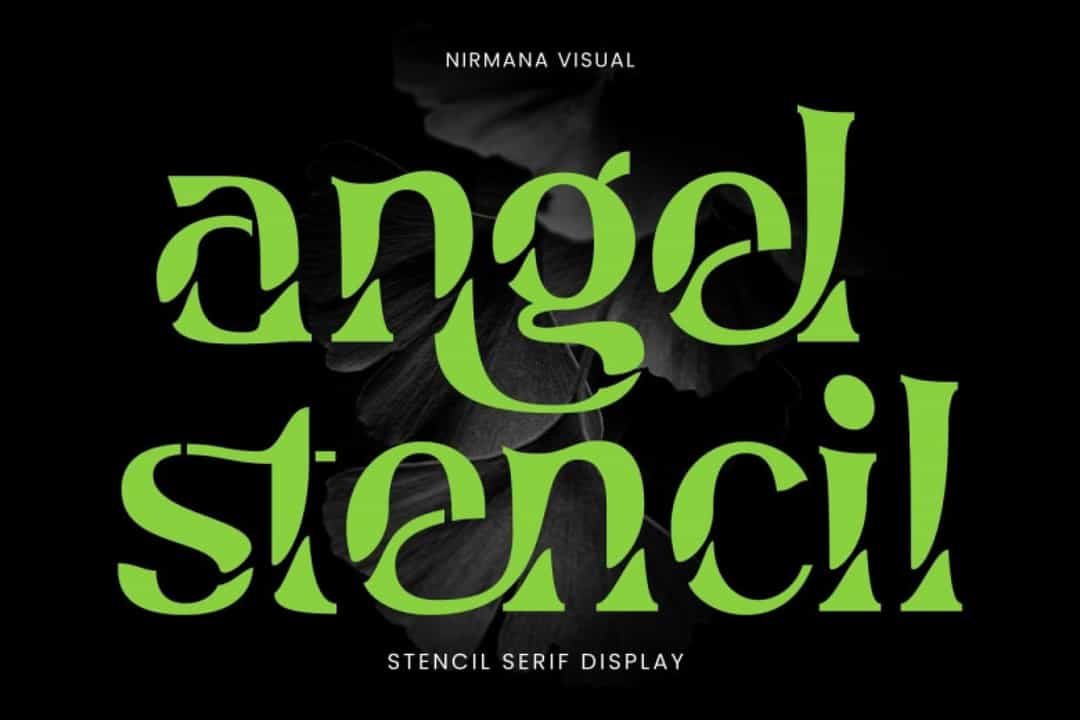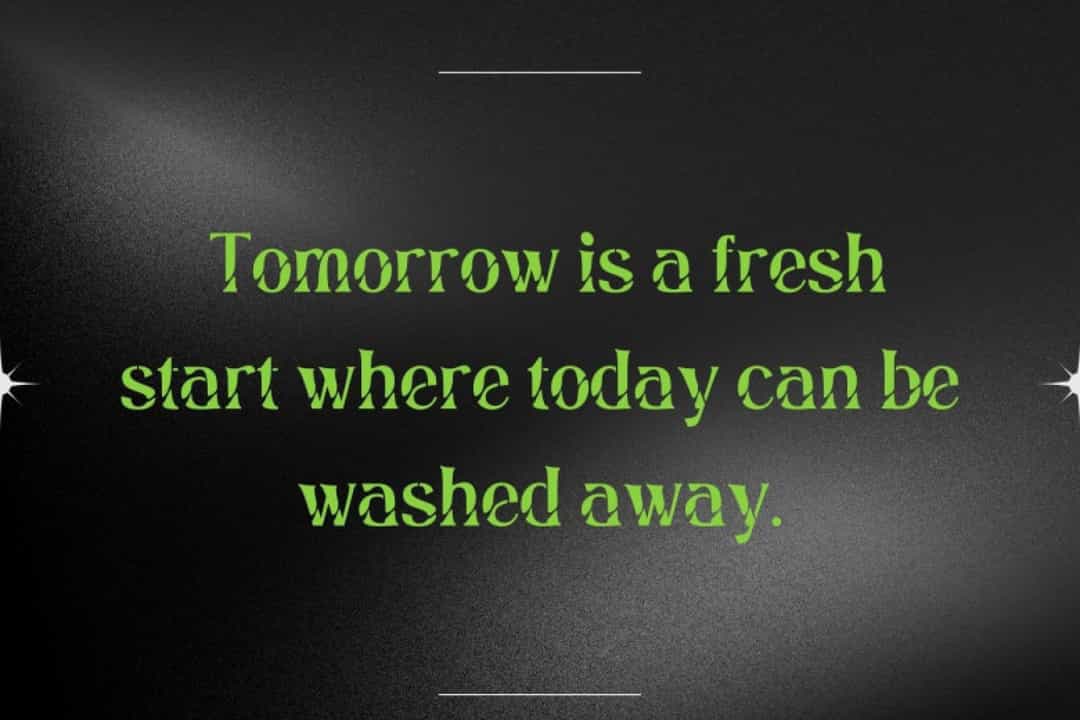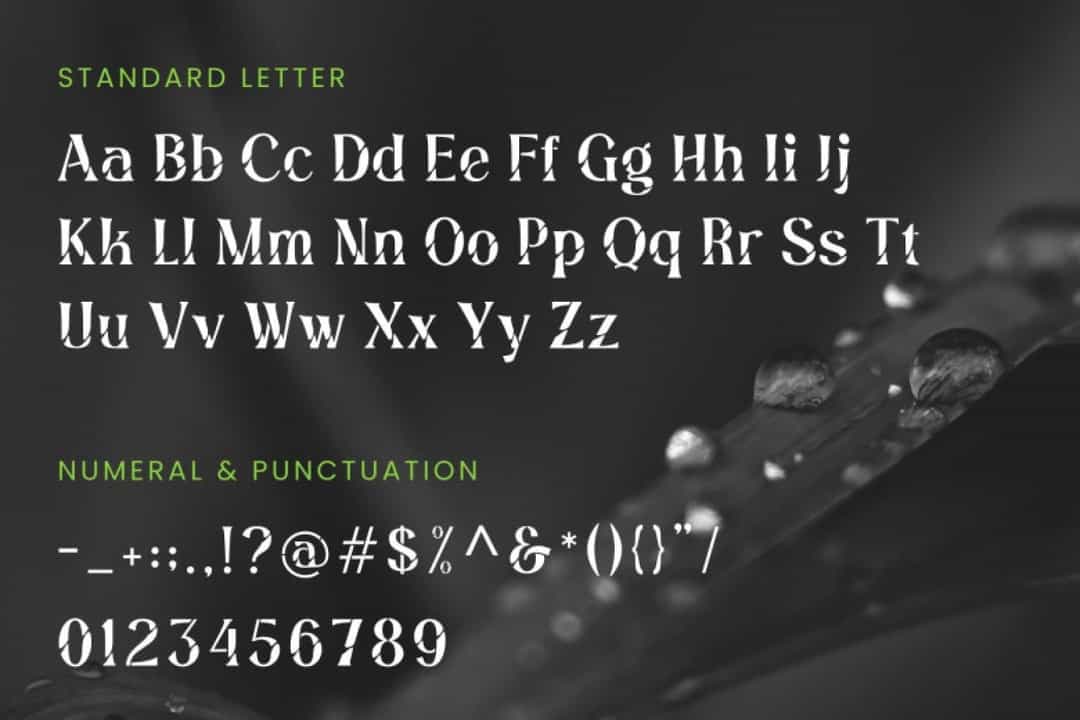
Angel Stencili is an elegant, modern, and fashionable Serif Typeface perfect for packaging products, branding projects, magazine covers, wedding invitations, social media posts or just to add words over any background. PUA encoded, giving access to all characters and strokes easily!